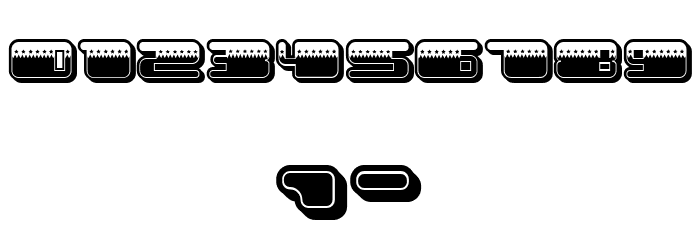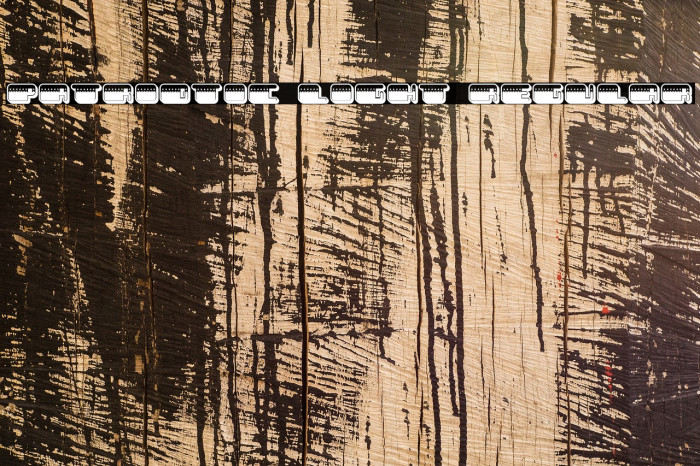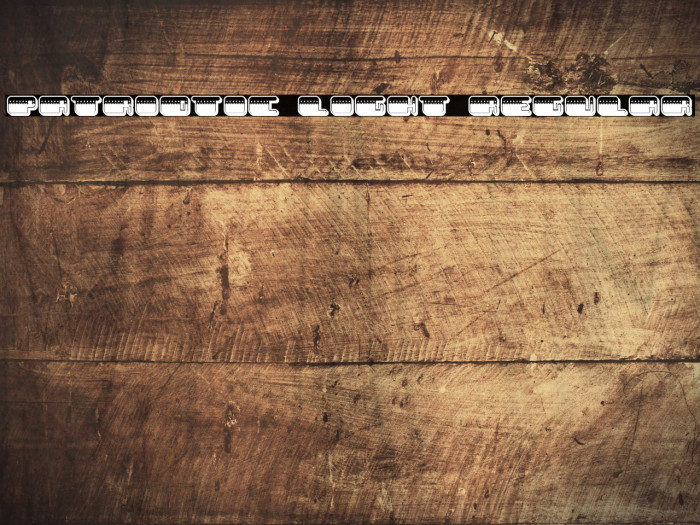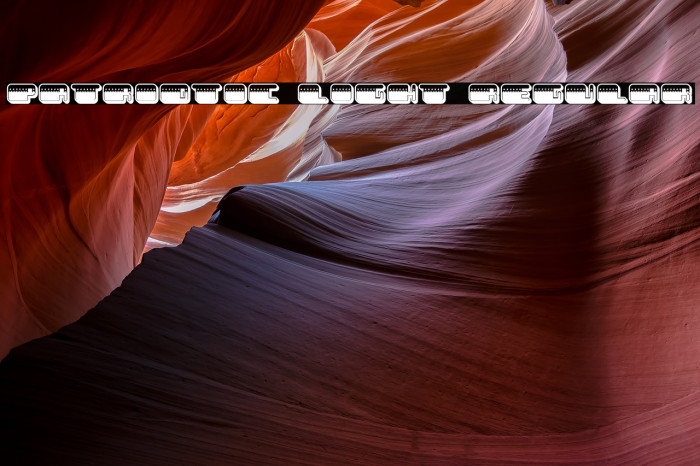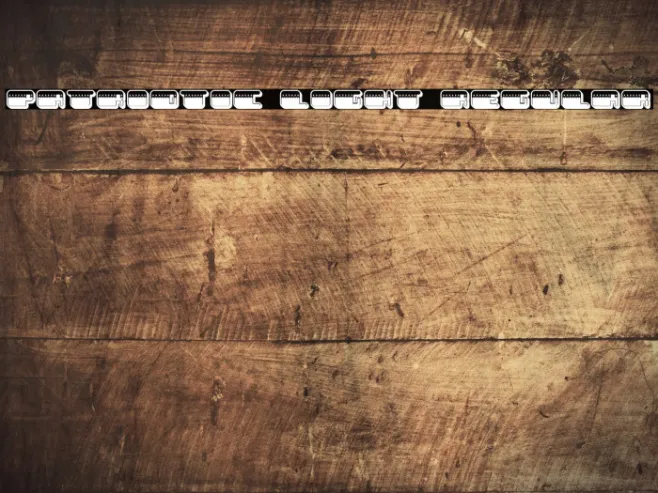
Patriotic Light Regular Font
This font features a bold and striking design with a unique, decorative style. Each character is enclosed in a box-like shape, giving it a distinctive, almost three-dimensional appearance. The letters are uniform in height, with a consistent width that creates a cohesive look across the alphabet. The font has a playful and modern feel, with rounded edges and a slight shadow effect that adds depth. It is highly legible, making it suitable for various design projects that require a bold statement. The numbers and special characters follow the same design principles, ensuring consistency throughout.
A bold, decorative font with a modern, three-dimensional style.
- Proposed Projects: Ideal for posters, headlines, branding, and any project that requires a bold, eye-catching typeface.